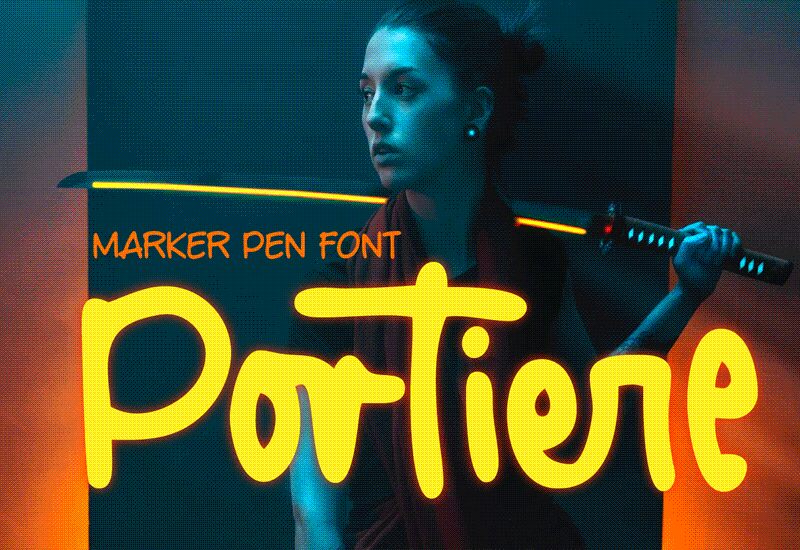
Portiere Regular
Portiere font by Cititype is a simple handwritten display with a modern and approachable style. Its casual flair mixes with its soft rounded edges to offer an overall thick and whimsical script design. Although made for current generation audiences, the typeface doesn’t overlook others with its elegant yet charming forms.